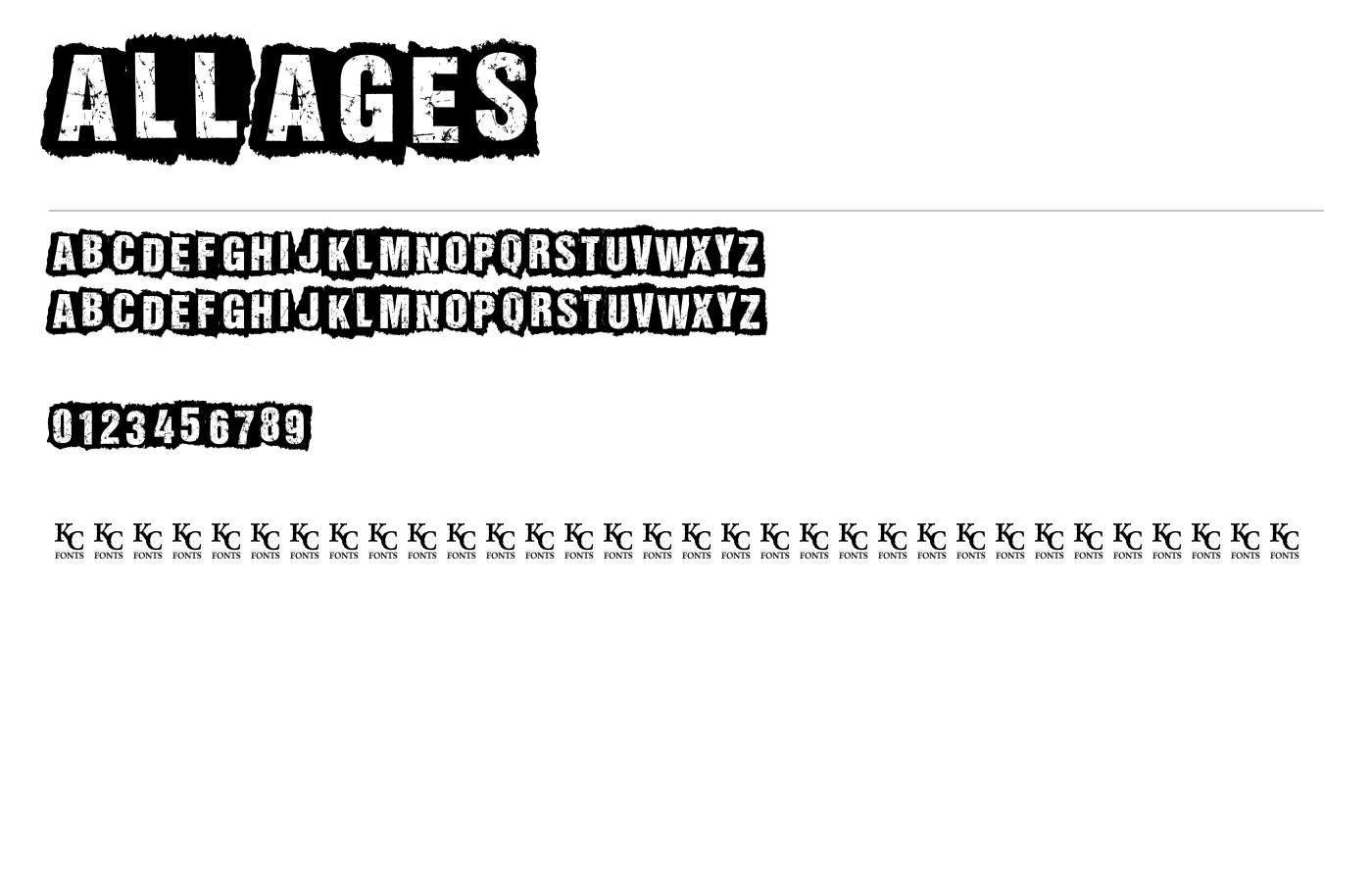
ALL AGES is a bold, distressed sans serif font with a rugged, stencil-like appearance that adds a gritty, urban edge to any design. Its all-caps style, high stroke contrast, and rough texture make it ideal for eye-catching headlines, posters, and branding that require a strong, rebellious personality. This font works best in projects aiming for a vintage or street-culture vibe where a bold, impactful statement is needed.
ALL AGES Font
About ALL AGES Font
| Font family | ALL AGES Font |
| Designer | Kevin Christopher |